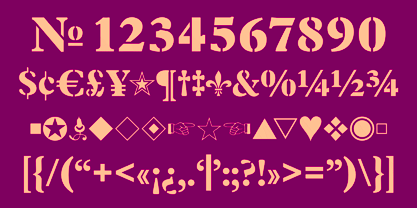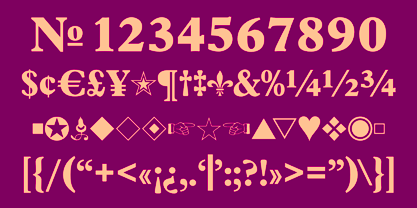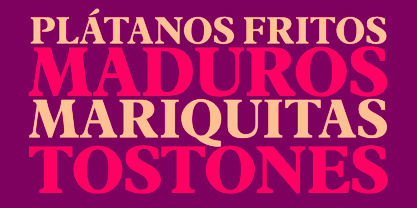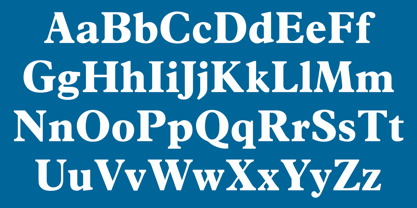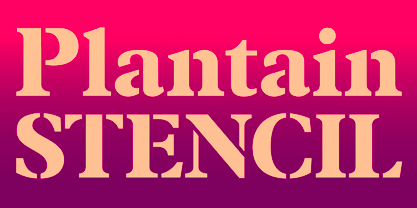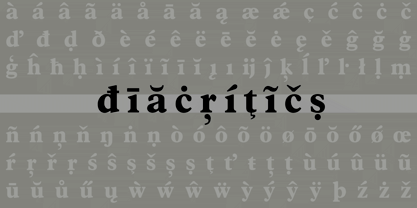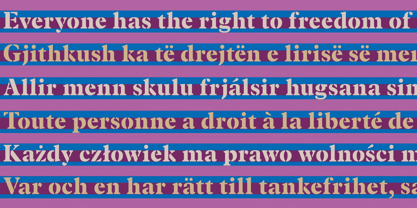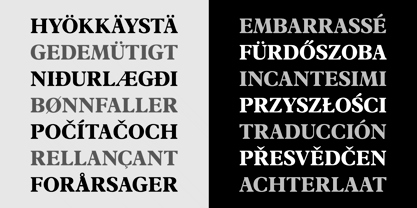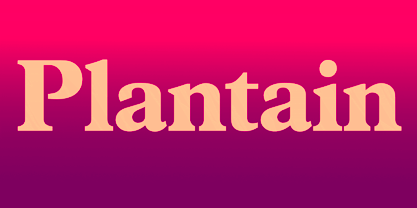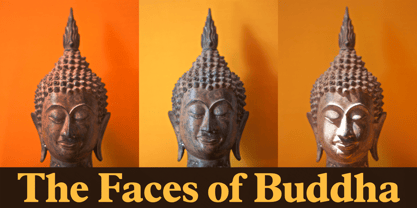
Plantain
Plantain™
by CastleType
Plantain Font Family was designed by Jason Castle and published by CastleType. Plantain contains 2 styles family package options.
Plantain Stencil is based on Plantain which in turn is my interpretation of Plantin Adweight, which was one of my first commissioned projects (by Smarter Image, long before they went bankrupt). Plantin Adweight is one of the most beautiful designs of the Plantin family, which is a modern revival typeface, cut under the direction of F. H. Pierpont in 1913, who based the design on that of a famous 16th century printer, Christophe Plantin, for whom Pierpont’s font was named. The stencil cut of Plantain adds a bit of sparkle to the design. Supports most European languages that use the Latin alphabet.